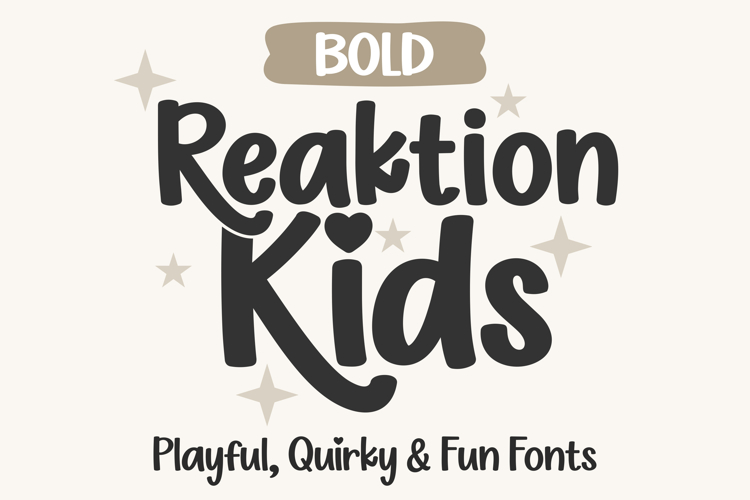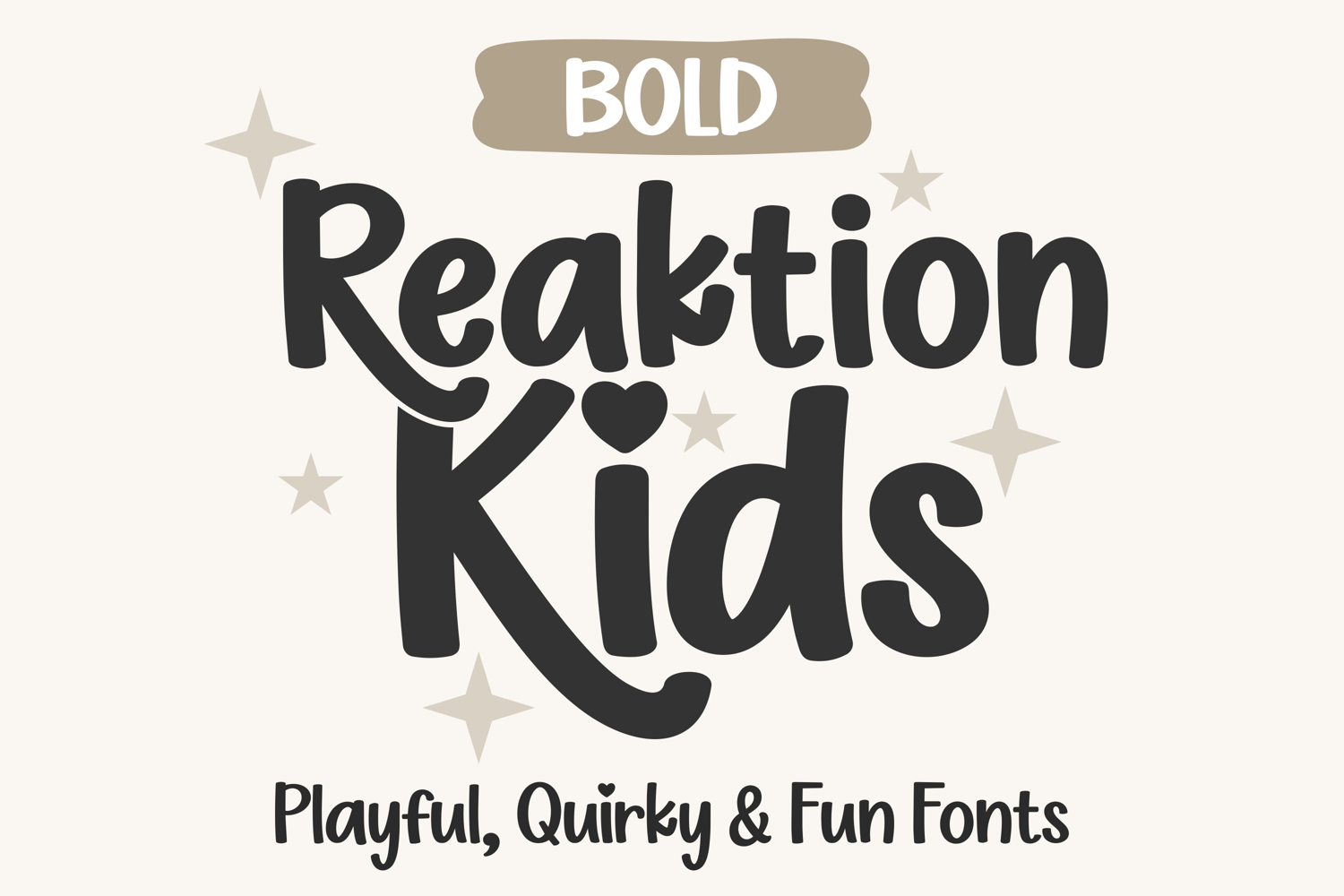
Reaktion Kids Bold Playful Handwritten Kids Font
Reaktion Kids Bold is a playful handwritten font with thicker strokes and a strong, friendly presence, designed especially for children’s projects. Its rounded shapes and smooth curves create a bold yet cheerful look that works beautifully for kids designs, classroom crafts, nursery artwork, and fun creative lettering.
A special feature of Reaktion Kids Bold is the heart-dot alternates for the letters “i” and “j,” adding a cute and whimsical detail to names, quotes, and playful messages. The bold weight makes this font ideal for designs that need extra impact while keeping a soft and joyful personality.
This font is perfect for t-shirts, stickers, posters, printable artwork, children’s room decor, school projects, party graphics, and digital lettering. Reaktion Kids Bold is well suited for designers, crafters, teachers, and creatives who want a fun kids font that stands out clearly and remains easy to read.